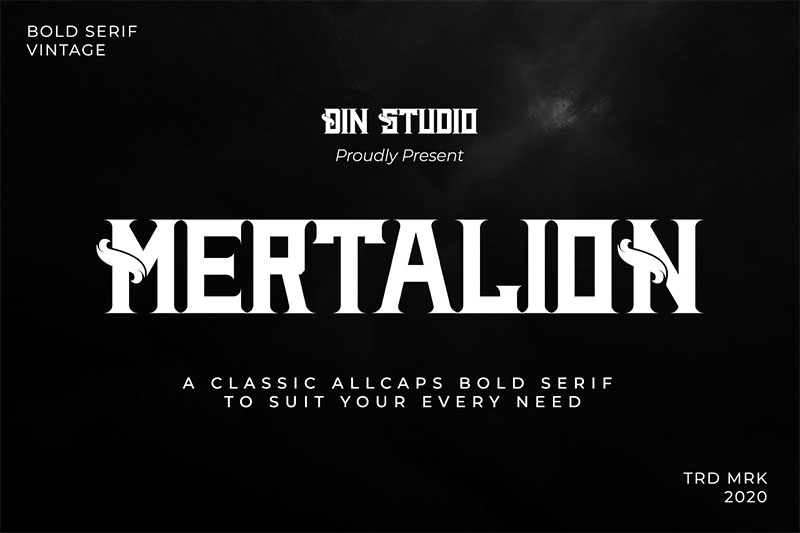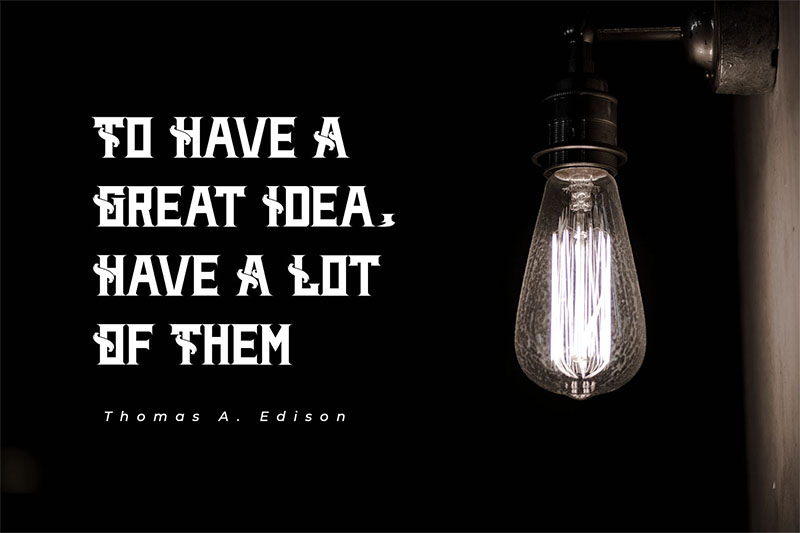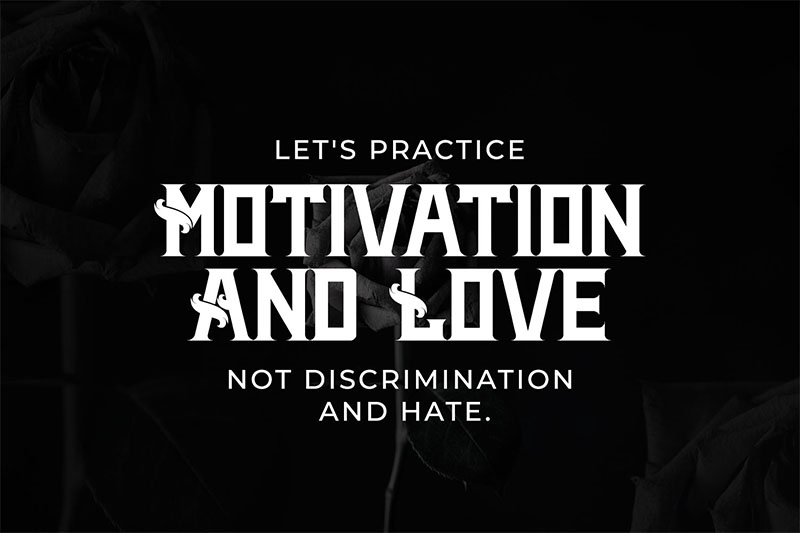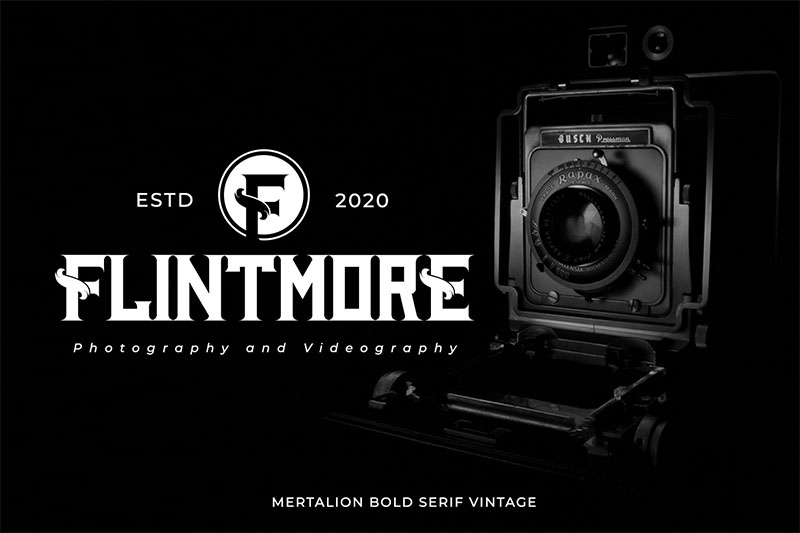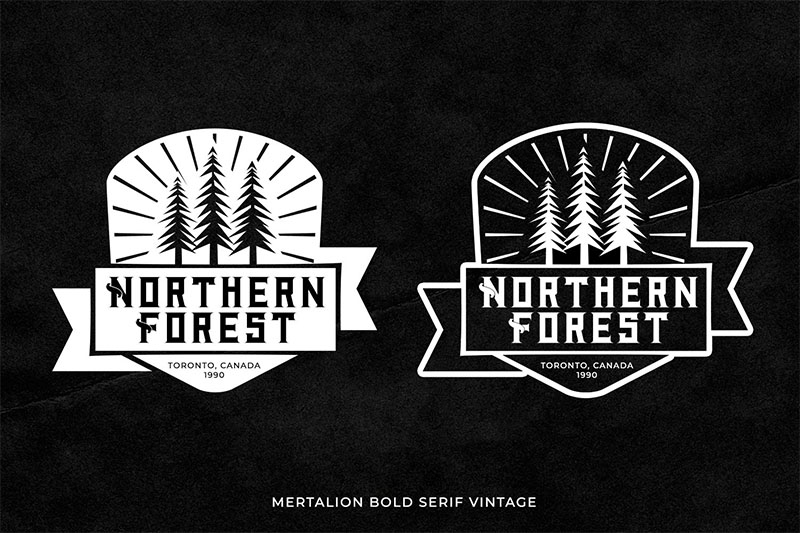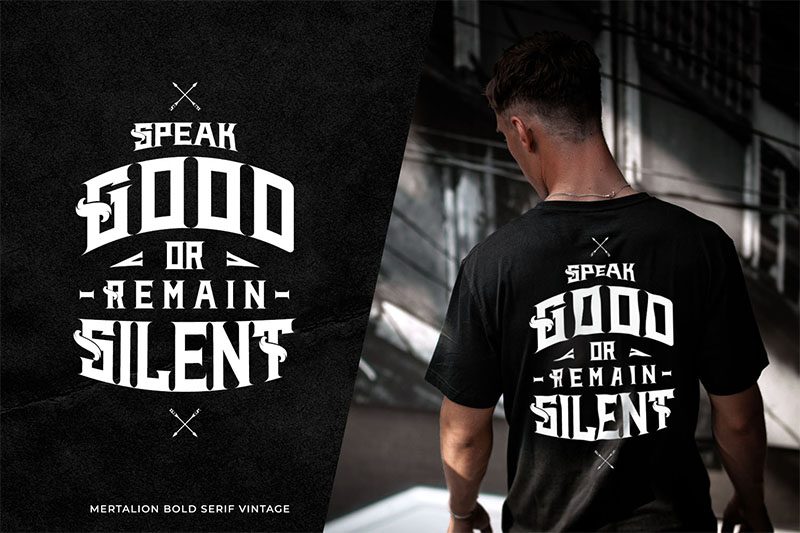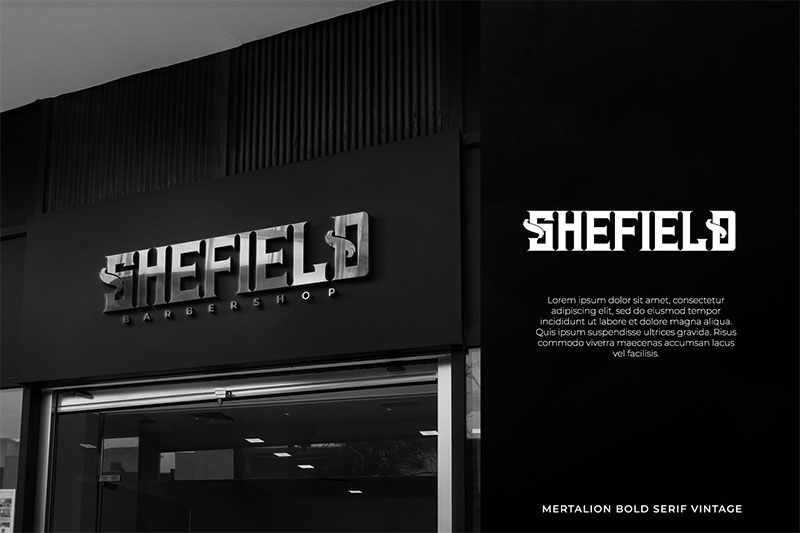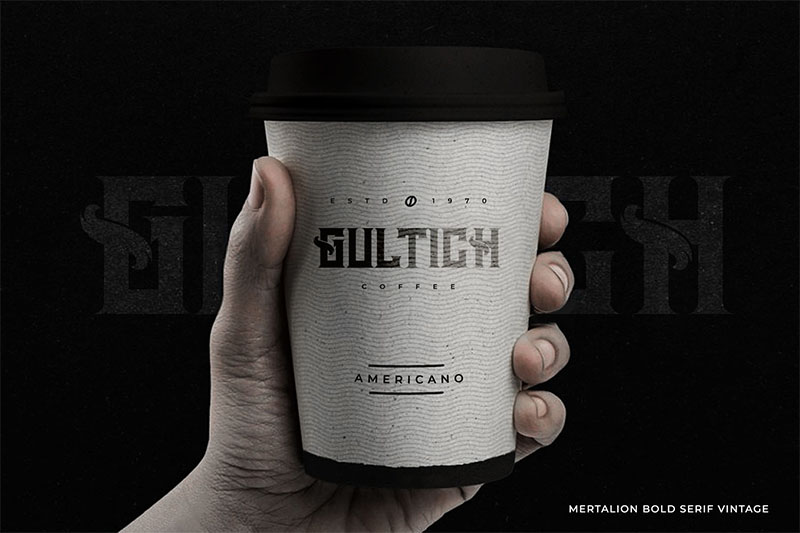
Mertalion
Mertalion is a Vintage Serif Font. Create inspiring from the vintage logotype. the fonts are suitable for any vintage project like branding, vintage logotype, quote, and t-shirt print. Don’t worry, our font always includes Multilingual Support to make your branding reach a global audience.
Featured :
• Accents (Multilingual characters)
• Numerals and Punctuations